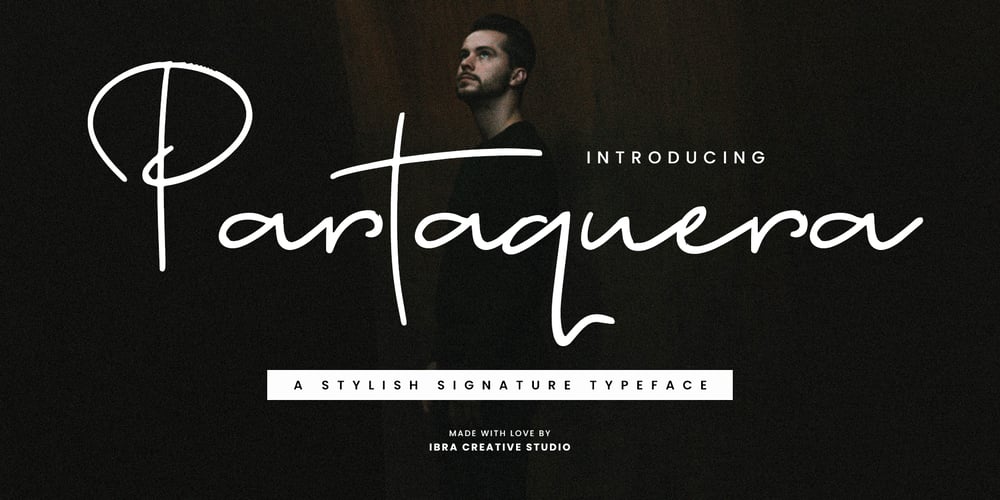
Partaquera Font Family was designed by Roisatul Azizah and published by IbraCreative. Partaquera contains 1 styles and family package options. Partaquera – A Stylish Signature TypefacePartaquera, a stylish signature typeface, exudes an air of sophistication and individuality with its refined strokes and distinct letterforms. Each letter is crafted with precision, emulating the fluidity and grace of a personalized signature. The elegant curves and strategic spacing in Partaquera create a seamless flow, reminiscent of a brushstroke penned by a discerning hand. This typeface seamlessly marries style and legibility, making it ideal for those seeking a signature font that adds a touch of class to branding, invitations, or any design requiring a bespoke and chic aesthetic. Partaquera stands as a visual testament to the art of signature, elevating written expressions with its modern and timeless allure.Partaquera is perfect for branding projects, logo, wedding designs, social media posts, advertisements, product packaging, product designs, label, photography, watermark, invitation, stationery, game, fashion and any projects.Fonts include multilingual support for; Afrikaans, Albanian, Czech, Danish, Dutch, English, Estonian, Finnish, French, German, Hungarian, Italian, Latvian, Lithuanian, Norwegian, Polish, Portuguese, Slovak, Slovenian, Spanish, Swedish.